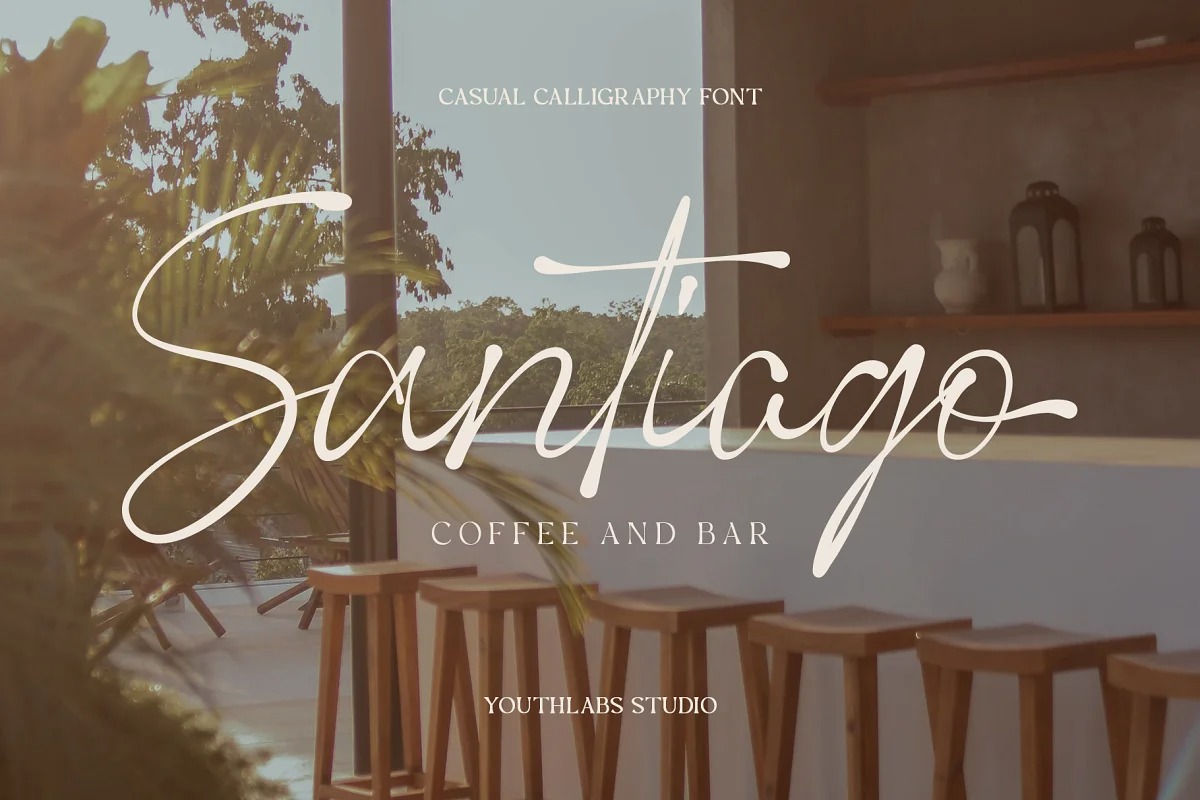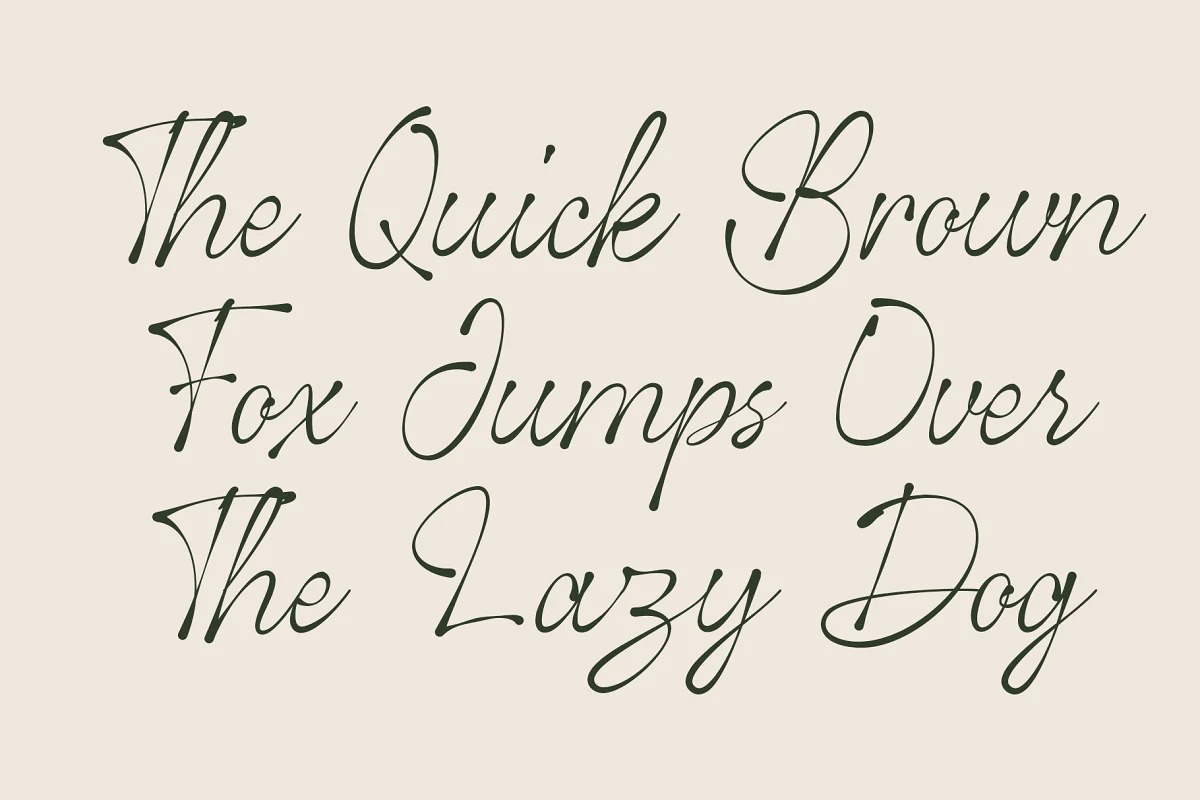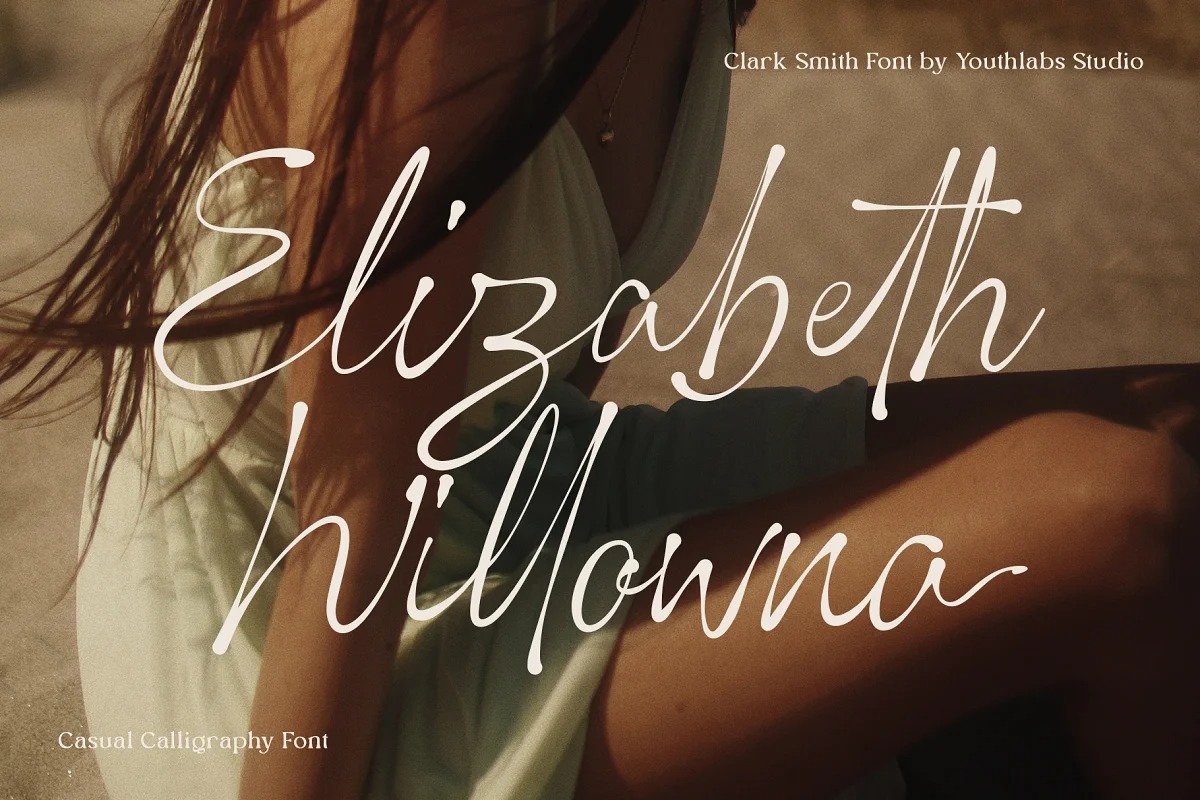
Clark Smith Font
Clark Smith Handwritten Font is a modern line natural handwritten typeface. It looks so good for fashion brand logo. With different style of shape and thickness line, Clark Smith will make it easier for you to use various design functions, be it for logos, typography, magazine, fashion, branding, advertising, and more.